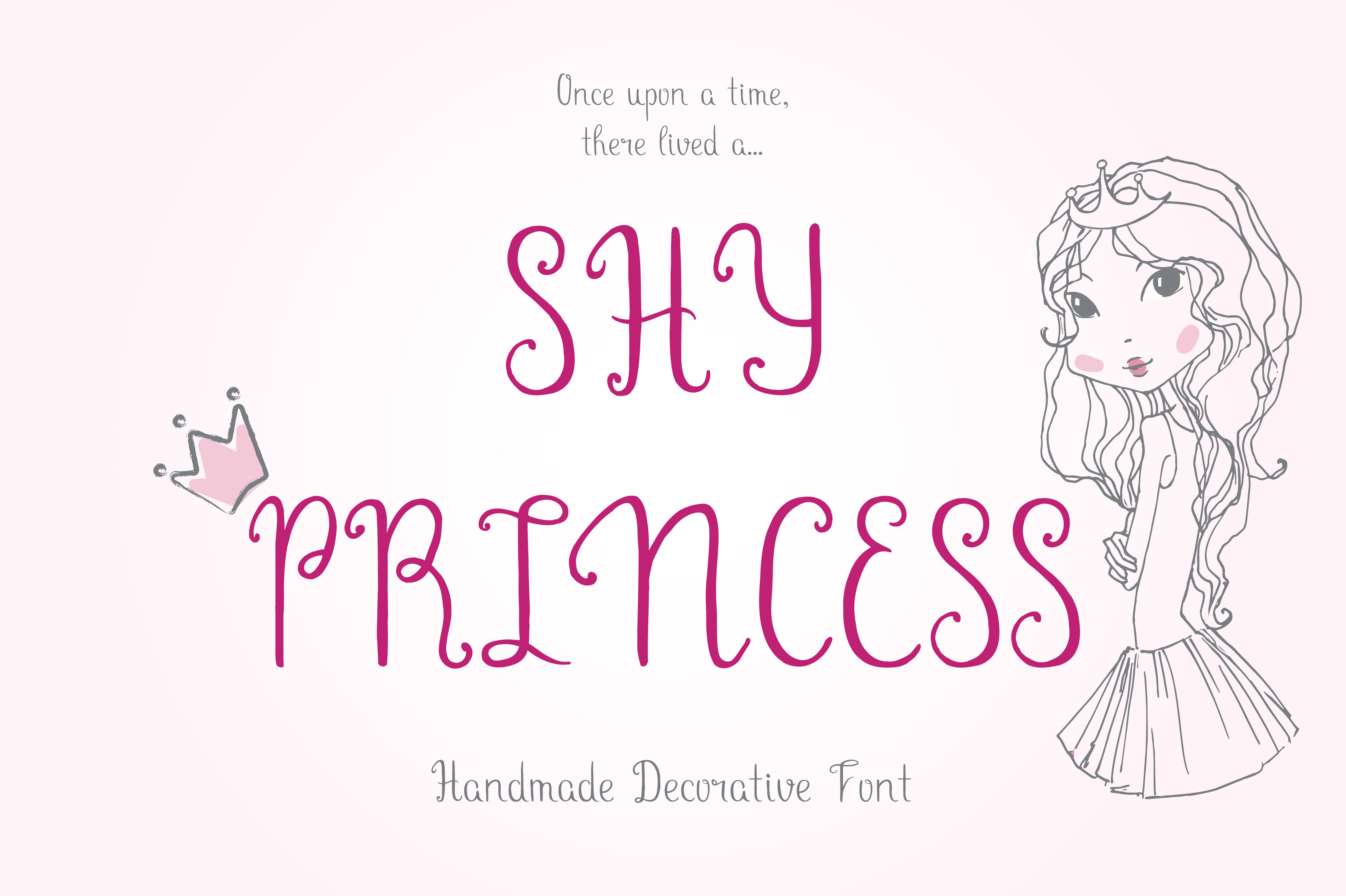
Shy Princess Decorative Font
Shy Princess Font is a handwritten decorative straight typeface with light curvy characters. It looks good either as a headline or in text.